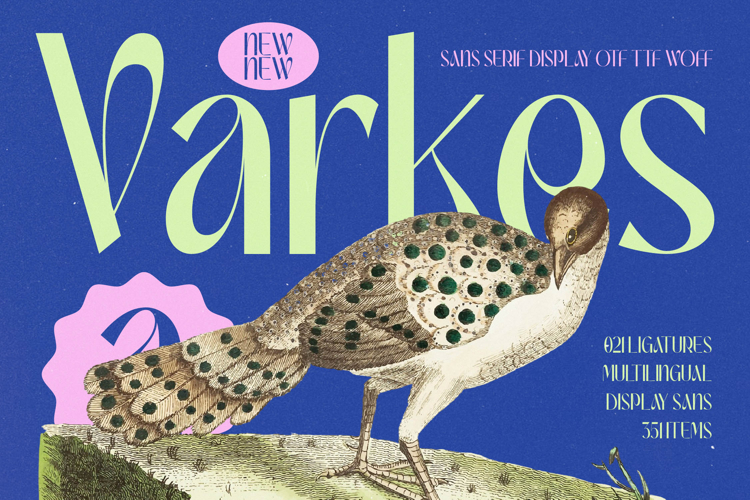
Varkes - Sans Serif Serif Display Font
Demand immediate attention with the unmatched visual drama of Varkes - Sans Serif Serif Display Font. This striking typeface masterfully blends high-contrast curves with bold, solid strokes, creating a truly memorable aesthetic rooted in classic display typography yet feeling refreshingly modern. Its serpentine terminals and dynamic verticality ensure every headline achieves maximum readability and elegant flair, making it an indispensable asset for projects that require a touch of sophisticated originality.
Scale your design ambition to a global design standard. With its extensive multilingual support, Varkes - Sans Serif Serif Display Font adapts seamlessly across global markets, making it incredibly versatile for international projects. This comprehensive package includes over 20 stylistic ligatures and alternates, providing designers with powerful OpenType features to craft truly bespoke typographical compositions that maintain professional polish across diverse languages and platforms.